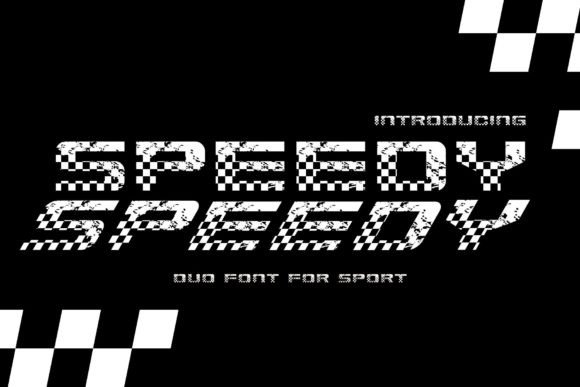
Introducing Speedy Font: The Fuel-Injected Font for Your Daring Designs!
In the world of design, there's nothing quite like the thrill of speed. Whether you're creating logos that rip through the wind or branding that leaves viewers in the dust, the right font can make all the difference. That's where Speedy Font comes in - a turbocharged display font that injects pure adrenaline into your creative projects.
Picture this: a sleek, aerodynamic logo that captures the essence of a Formula One race, a poster that screams "adventure" with its vintage racing aesthetic, or a social media campaign that leaves your followers breathless with its high-octane energy. Speedy Font makes all this and more possible.
With its cool, retro styling and meticulously crafted characters, Speedy Font is the perfect font for anyone looking to add a touch of exhilaration to their designs. It's a font that speaks to the thrill-seekers, the adrenaline junkies, and the ones who live life in the fast lane.
But Speedy Font isn't just about aesthetics - it's also incredibly versatile. Whether you're working on a blog post, a logo, or a branding project, Speedy Font has the power to transform your words into visual masterpieces. It's a font that commands attention, leaving a lasting impression on anyone who sees it.
So if you're ready to take your designs to the next level, it's time to buckle up and hit the gas with Speedy Font. Let this font be your creative co-pilot, guiding you towards designs that are as bold and daring as you are.